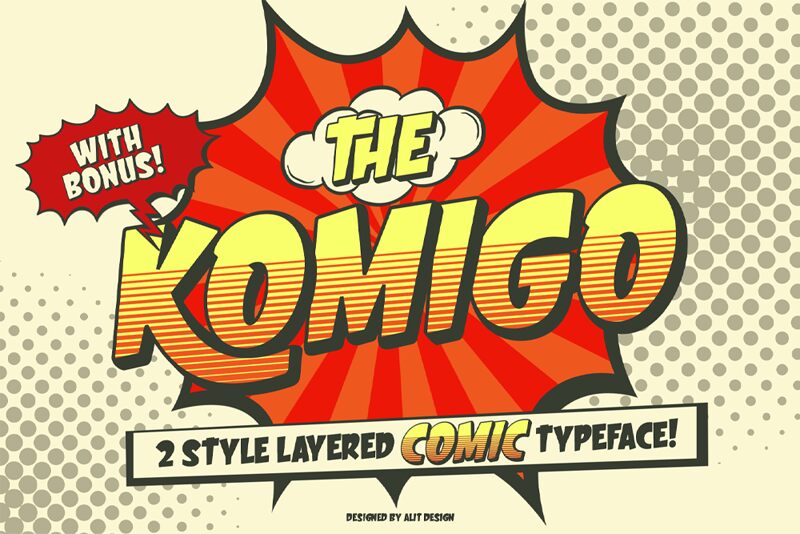
Komigo 3D Regular
Komigo 3D emerges as a dynamic and playful addition to the Komigo font family by Alit Design. With its bold, 3D comic style, this display font leaps off the page, infusing titles and headlines with a sense of depth and excitement. The chunky letterforms exude confidence, while the shading adds volume, making it an excellent choice for impactful branding, vibrant advertising campaigns, or eye-catching editorial work.
Its aesthetic charm lies in its ability to convey fun yet assertive messaging through typography that literally stands out. Ideal for designers looking to inject a touch of whimsy into their work without sacrificing boldness, Komigo 3D is as versatile as it is visually striking.
Komigo 3D